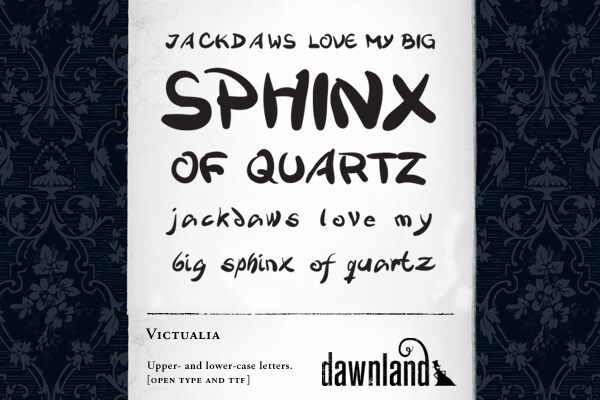
Victualia, created by Dawnland 05, is a free brush script with broad, uneven strokes and strongly varied letter shapes. Blunt joins and tapered ends keep the line lively.
Posters are its most convincing setting, especially for food festivals and live music events where the broad forms can supply a quick painted look across the main message. Casual packaging and merchandise also suit its elastic bounce, though its clearest role is turning an event title into part of the hand-painted artwork rather than neutral type.
Victualia